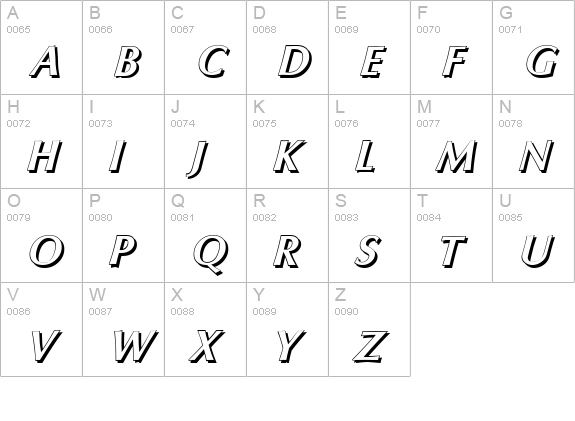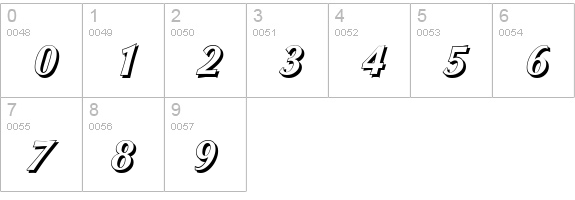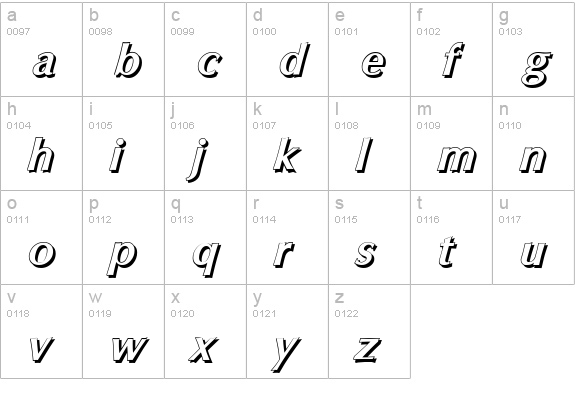
ColumbiaShadow-BoldItalic Font Details
ColumbiaShadow-BoldItalic is a striking and bold typeface that exudes elegance and sophistication. With its unique shadowed design and slanted italics, this font is perfect for making a statement in your projects. The bold strokes and sleek curves of ColumbiaShadow-BoldItalic create a modern and dynamic feel, making it ideal for headlines, logos, and branding. What sets ColumbiaShadow-BoldItalic apart is not only its visual impact but also its accessibility - it is available for free download at FontsMarket.com. This means that you can easily incorporate this eye-catching font into your designs without any cost. Whether you're working on a print project, a website, or any other creative endeavor, ColumbiaShadow-BoldItalic is sure to add a touch of style and flair. Download it now and elevate your design game with this impressive typeface.